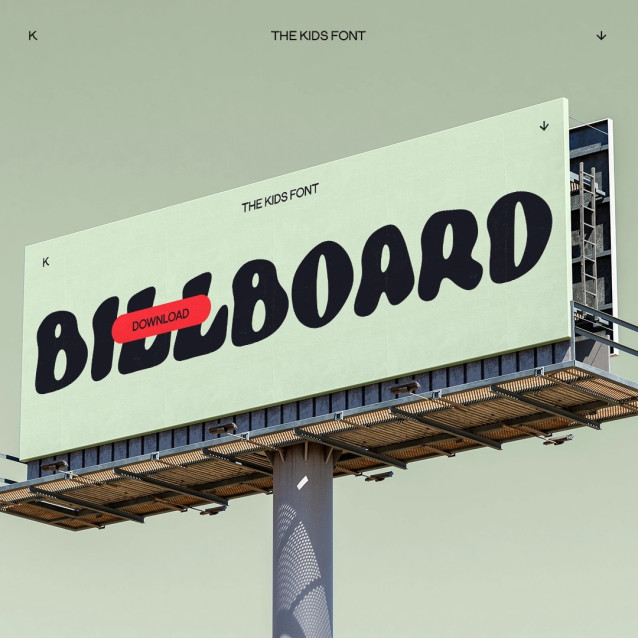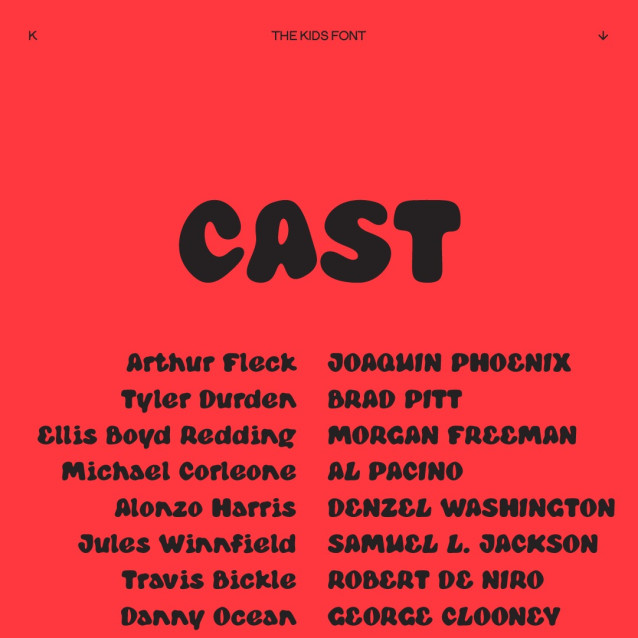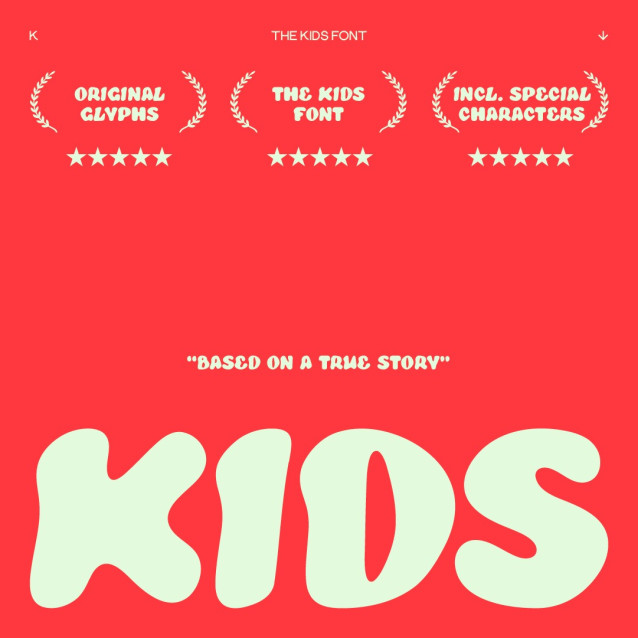
The Kids Display Font
The Kids Display Font is a simple and modern display font suitable for quotes, logos, headings, titles, and many more. Use it on any of your creative projects, and your designs will become outstanding!